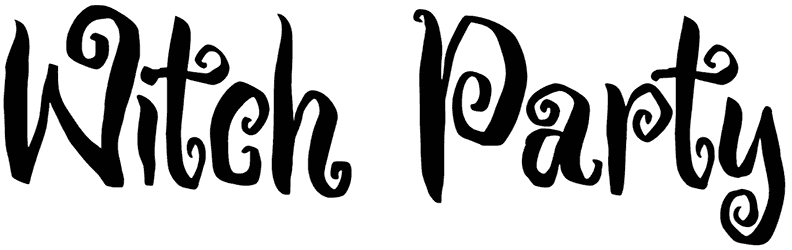
Witch Party Font
This fantasy font, Witch Party, has the potential to provide a more curly aspect to your digital products, making them more playful and humorous for your intended audience. This Halloween font works well for everything from advertisements and flyers to apparel and home decor.
It’s a challenging font, perfect for Halloween, and a must-have if you want to make a good impression on your client. It’s up to you to decide whether to keep things the same or break with convention.